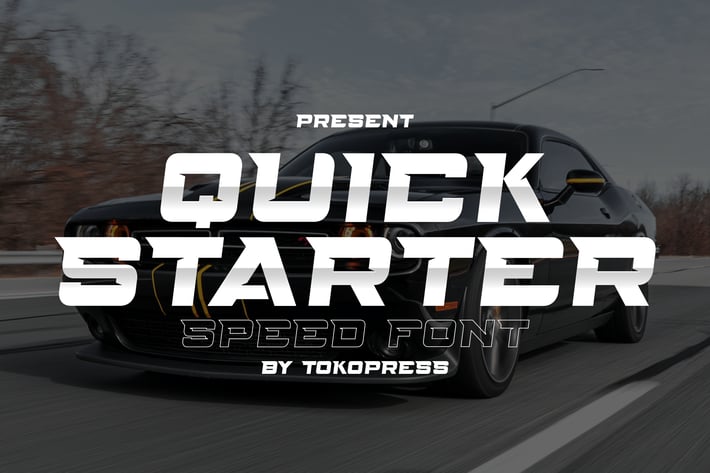
QUICKSTARTER - racing gaming font
QUICKSTARTER - Racing Gaming Font
Futuristic racing display font with geometric cuts, strong rhythm, and high readability for speed-themed visuals.
Quickstarter captures the pulse of motorsport and racing culture with its aggressive, angular terminals and bold stance. Designed with a geometric skeleton and engineered letterform spacing, it feels modern, structured, and impactful. Whether you're building a racing game UI, designing car show posters, or pushing high-octane branding, this font delivers adrenaline on sight. Its energetic tone and clean edges make it ideal for modern, fast-moving visual media.
Perfect for car events, e-sports titles, and automotive product branding, Quickstarter gives your headlines and visuals a turbocharged boost. The font mirrors the technical precision and power of motorsports, making it a great fit for projects that demand attention, clarity, and speed. From YouTube thumbnails to digital ads and speed-run titles, Quickstarter keeps your visuals in pole position.
- Bold, condensed style: Demands attention in both digital and print layouts
- Speed-driven geometry: Inspired by motorsport lettering with sharp edges and fast flow
- Versatile usage: Perfect for poster design, editorial headers, branding, UI design, and trailers
- Strong alignment: Built with optimized spacing for visual impact and legibility
- Energized visual tone: Designed to convey power, speed, and modernity
- Basic latin A-Z and a-z, Numbers, Punctuation